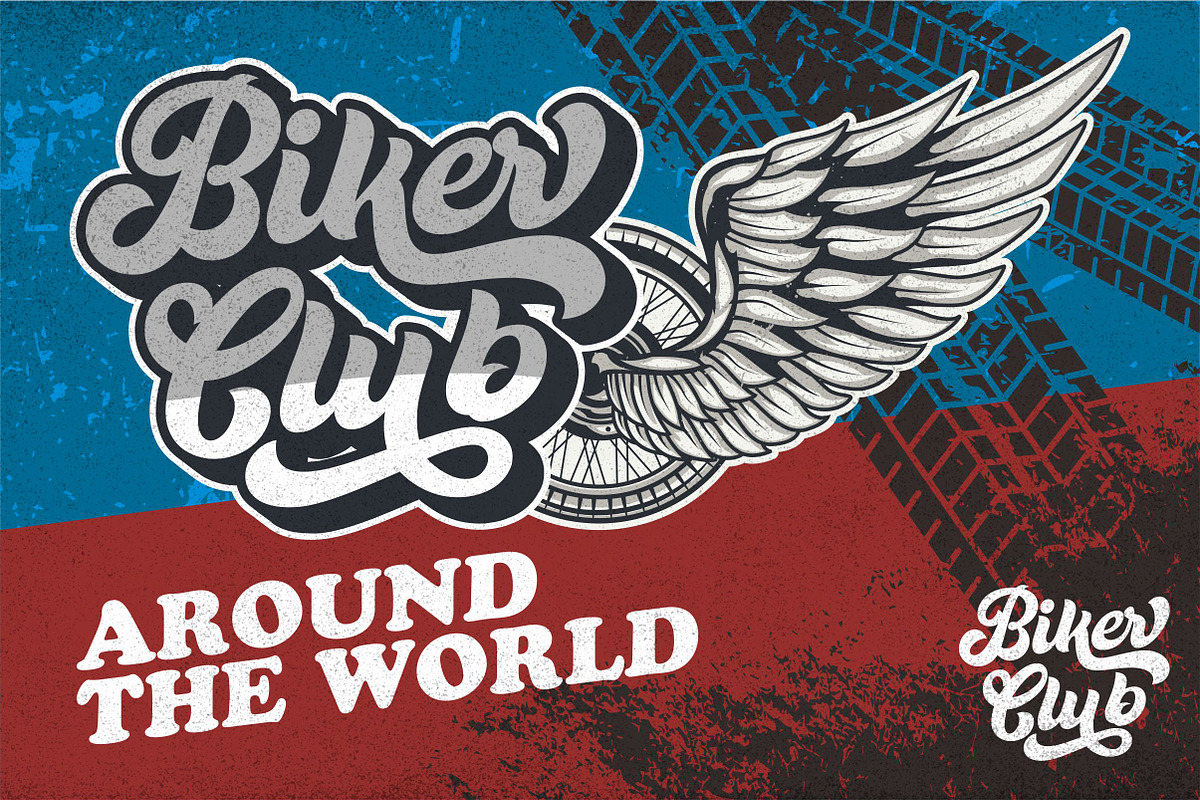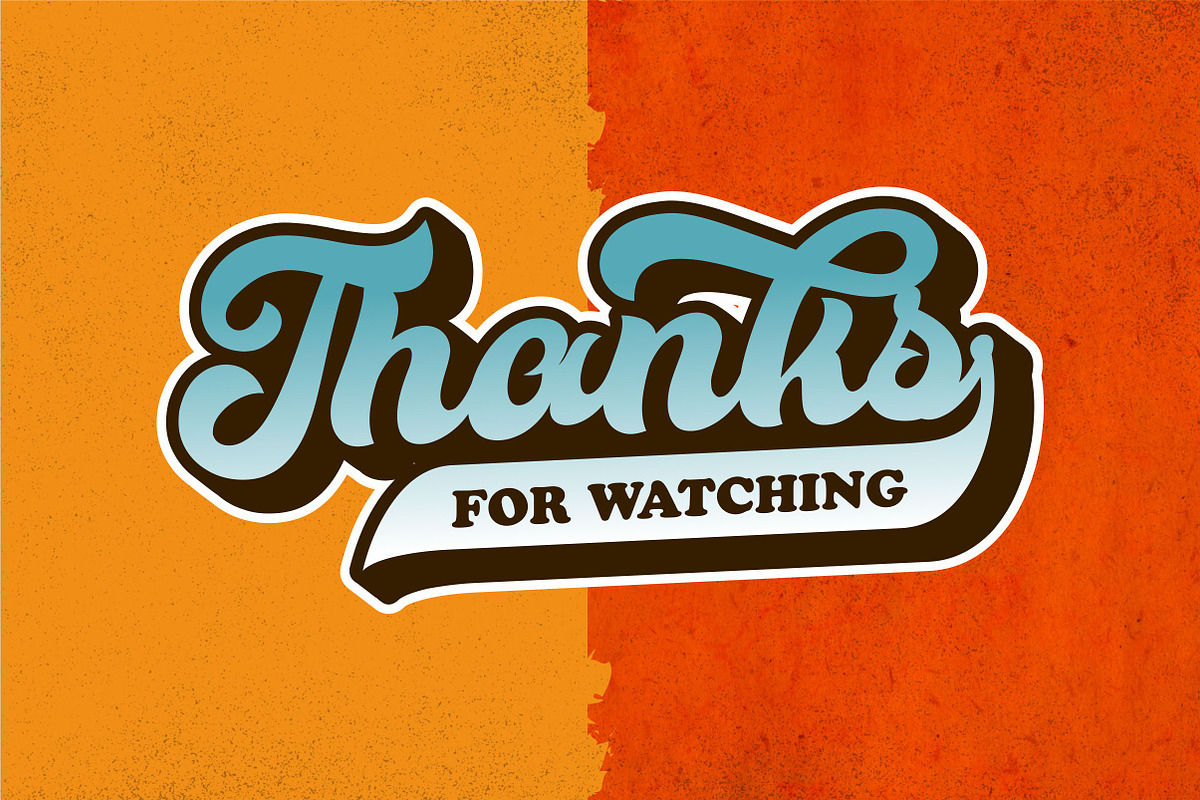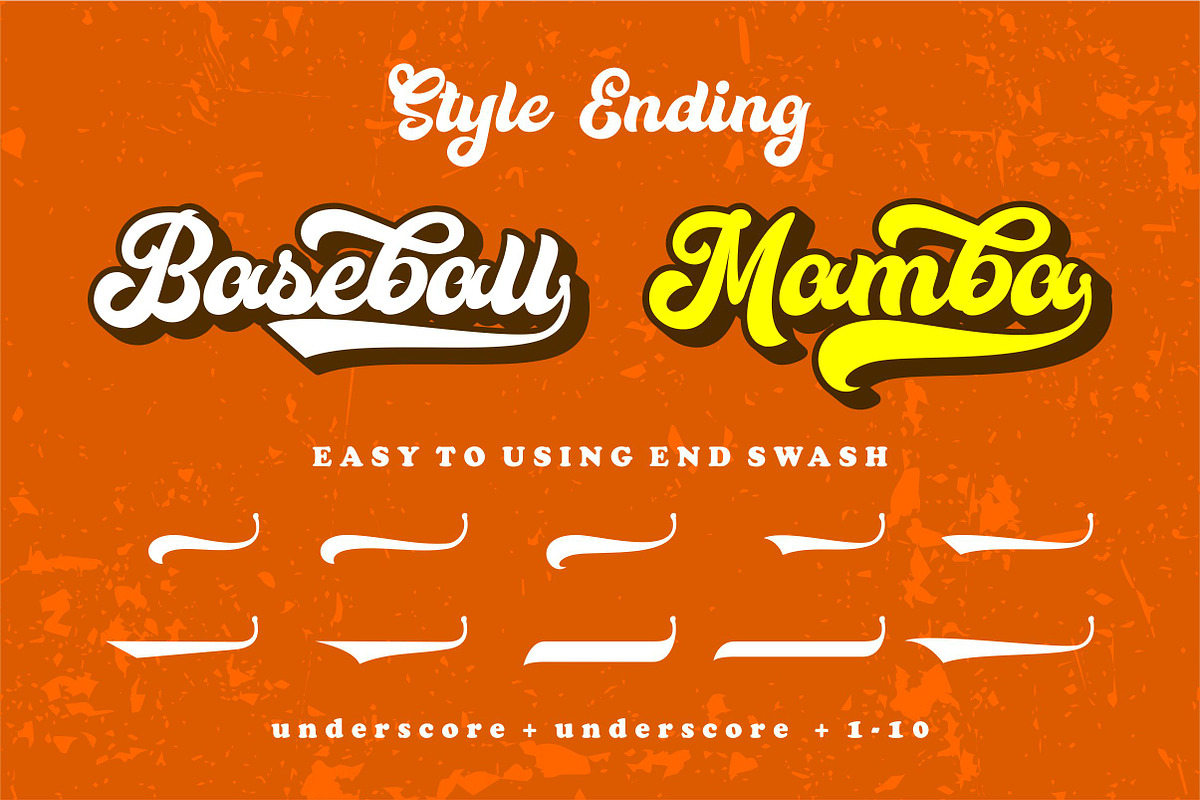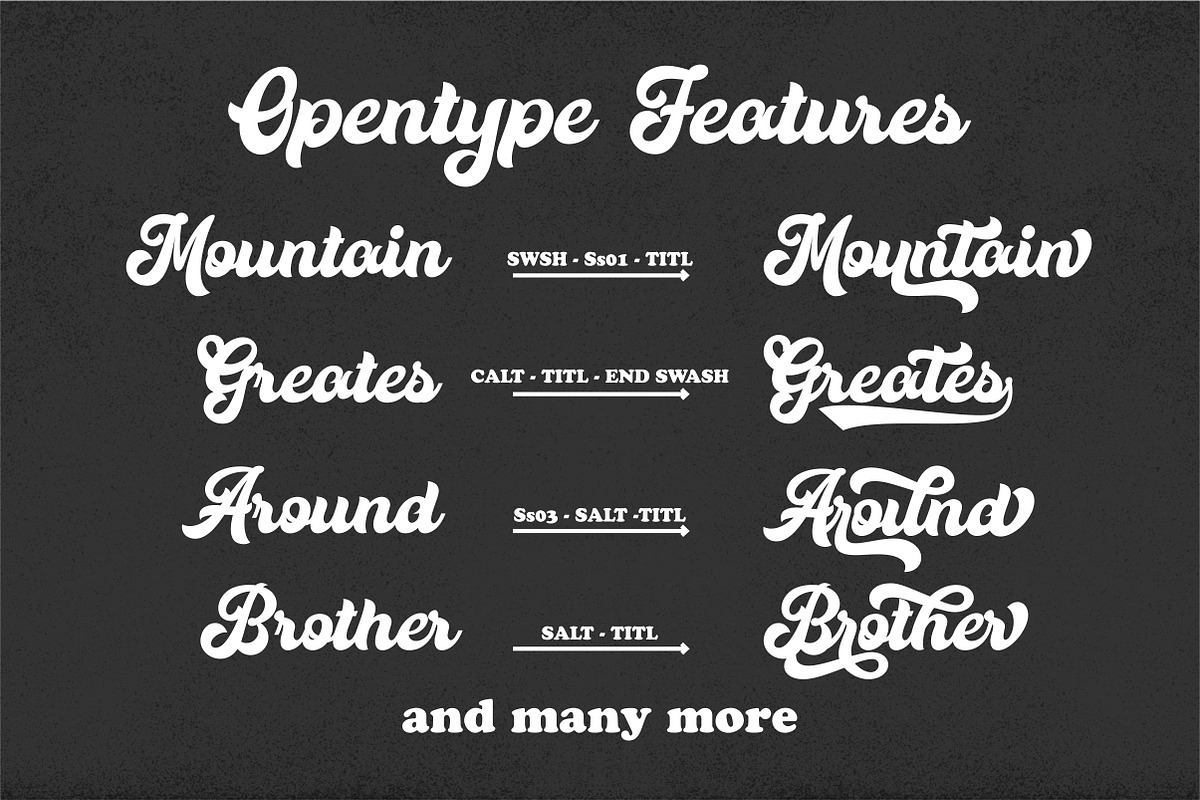
Krasty ~ Unique Retro
Introducing, Krasty. Unique retro inspired writing of letters from the past, this typeface has an extrusion version so you can create unique retro effect fonts very easily. which can be applied in various types of projects such as invitation, label, logo, magazine, book, greeting / wedding card, packaging, fashion, makeup, stationery, novel, label or any type of advertising purpose.
in this font feature you will get, uppercase, lowercase, numbers and multilingual, swash on letters, and some bonus swash that will make this font look more perfect for retro shapes